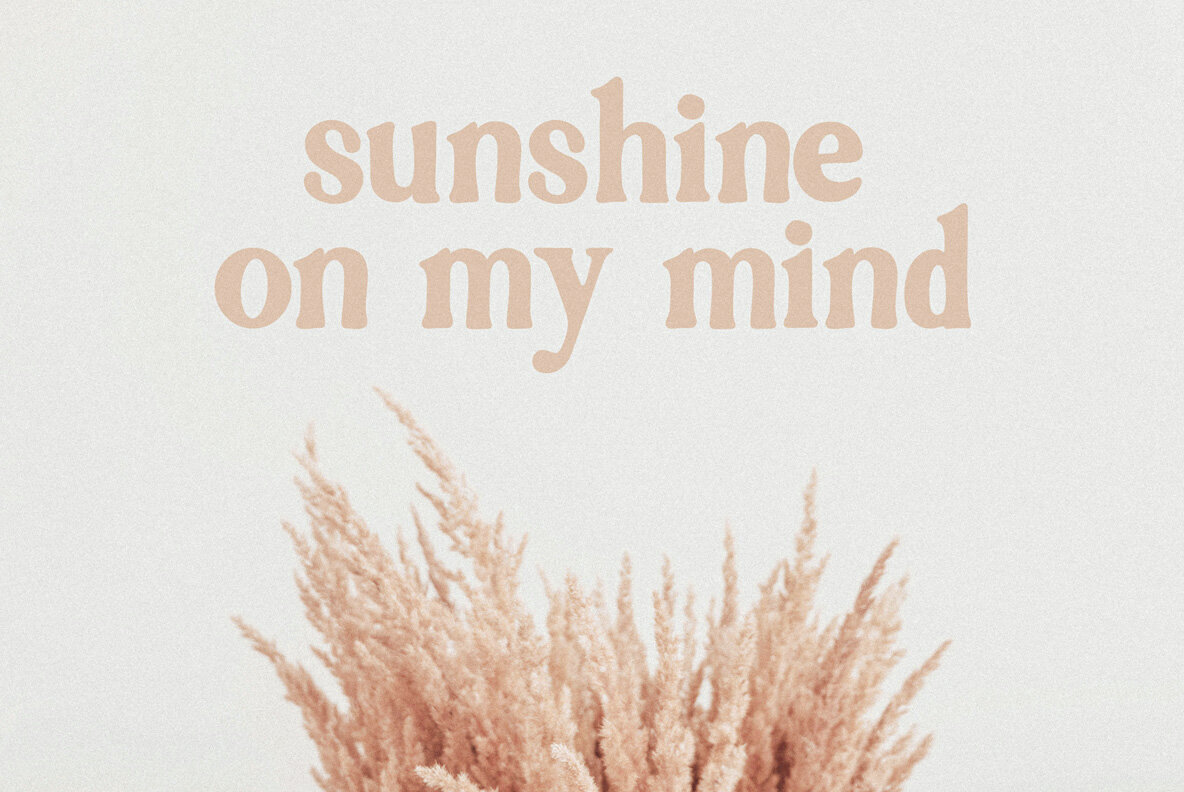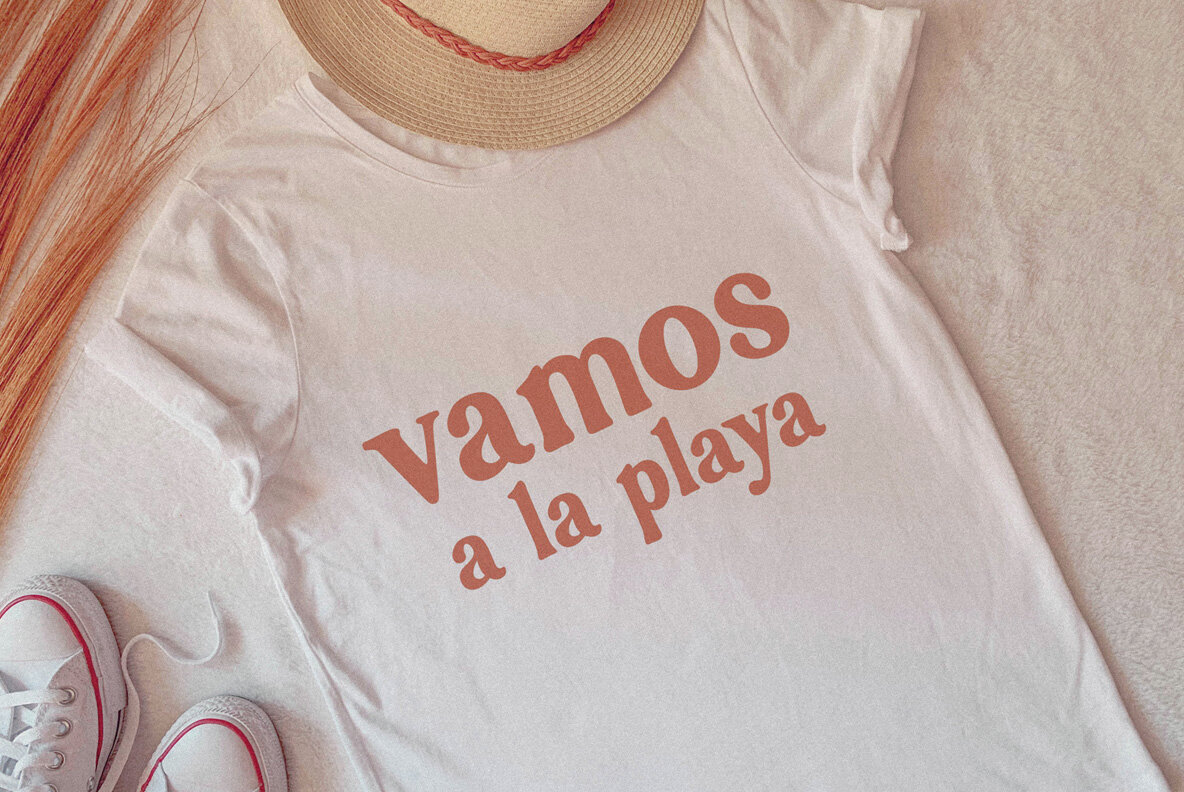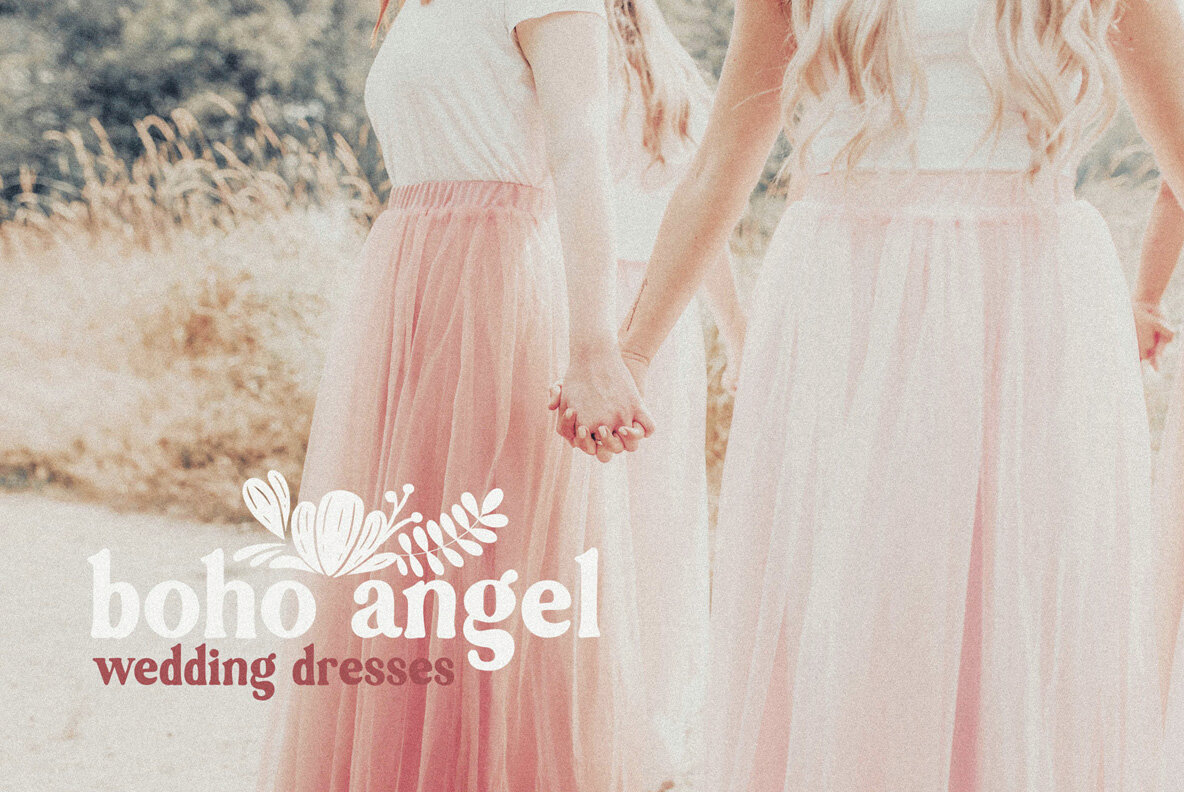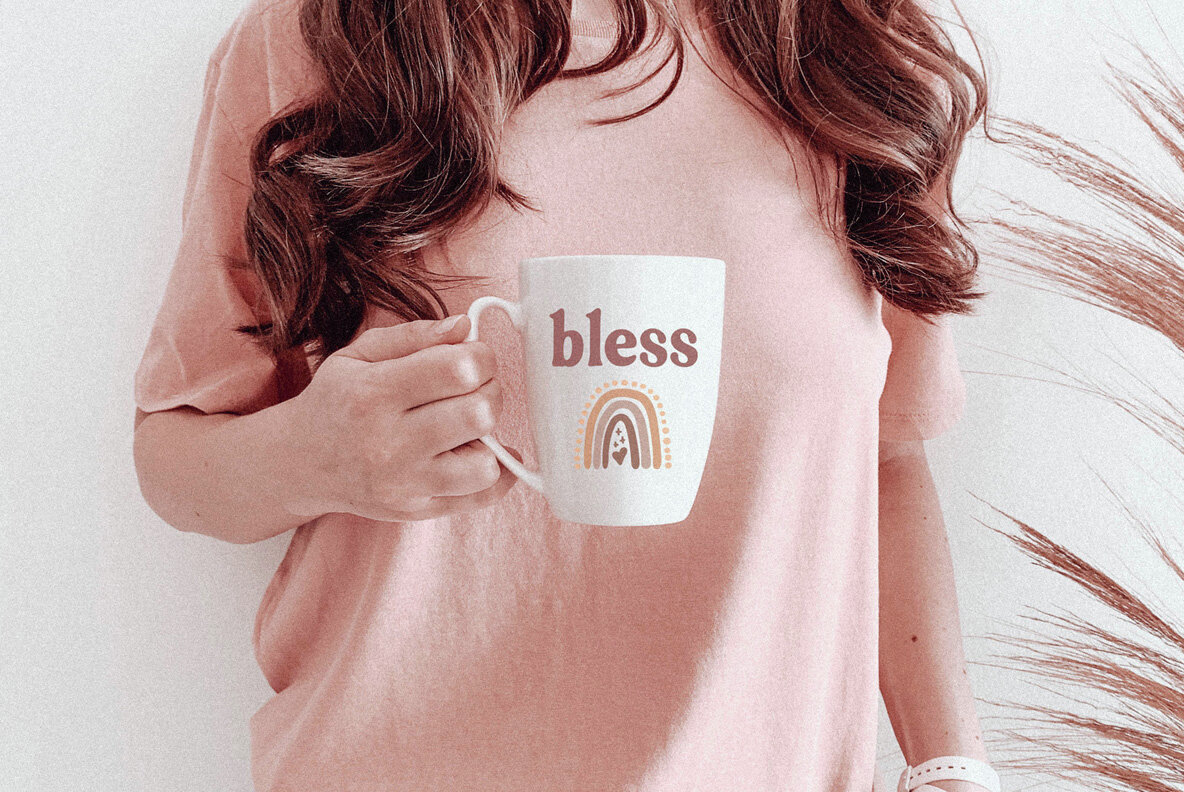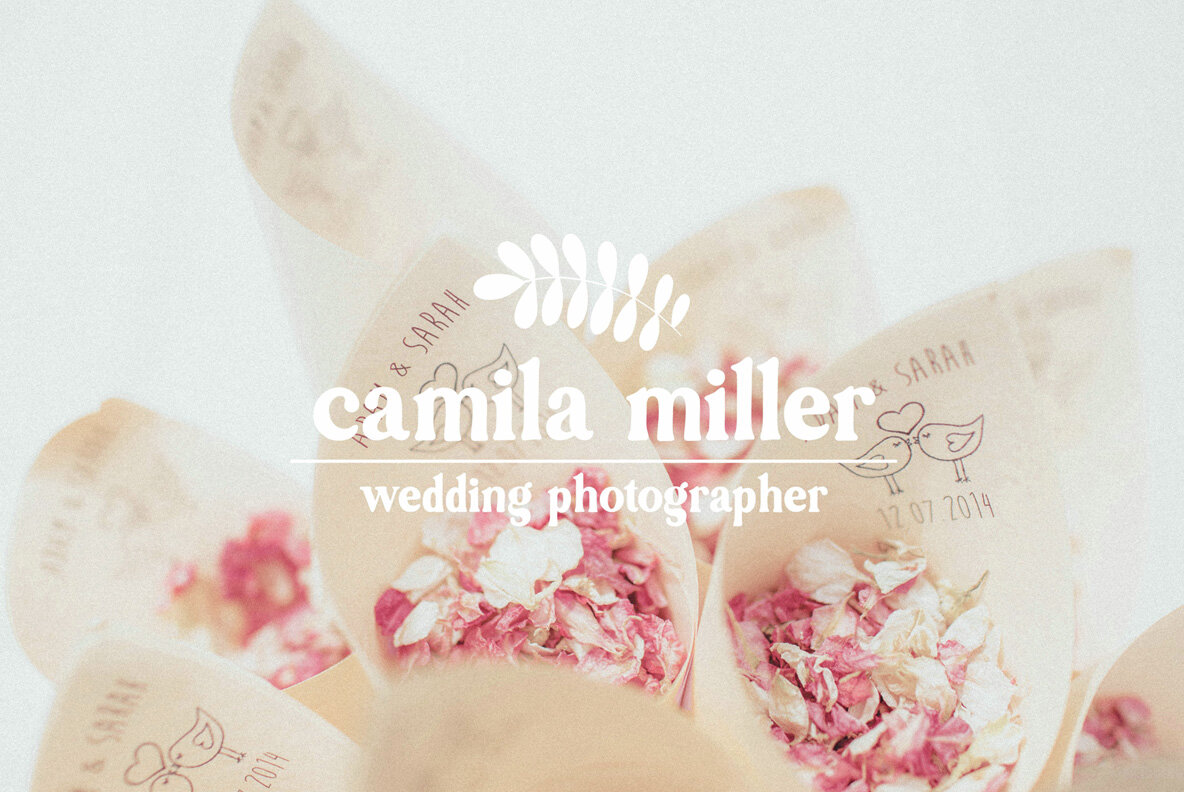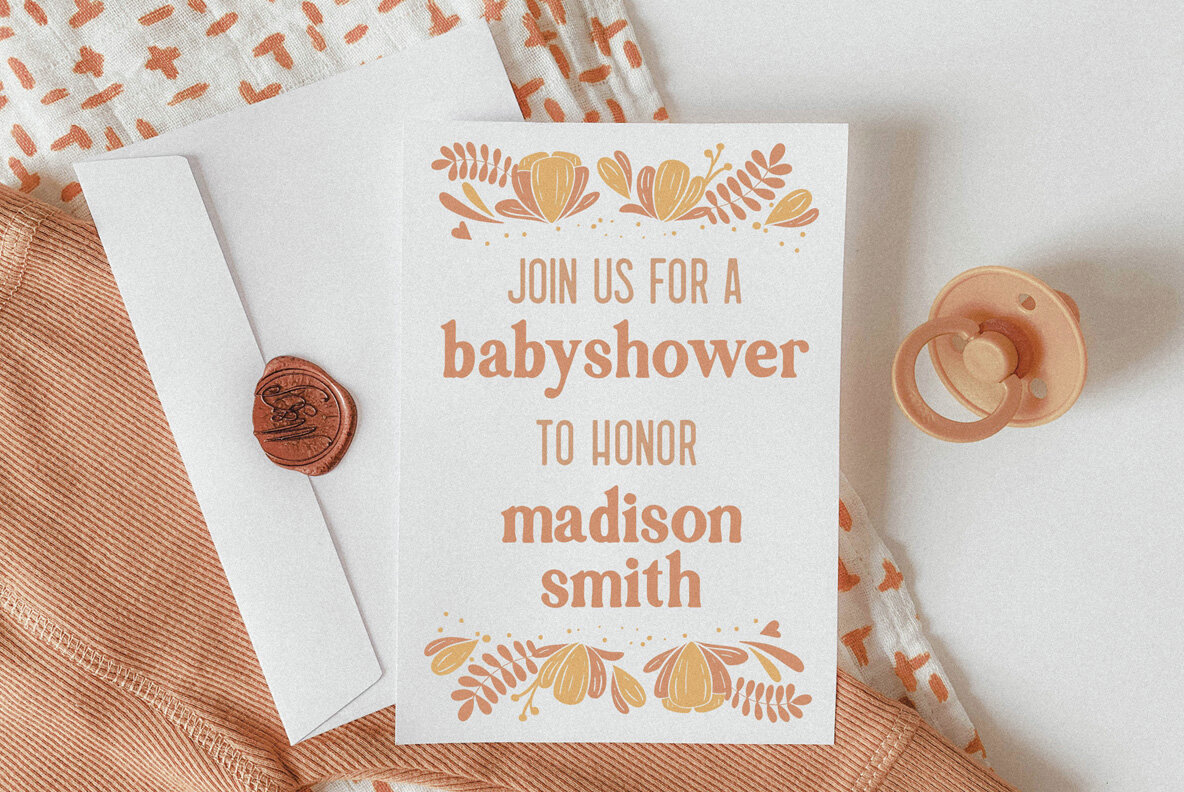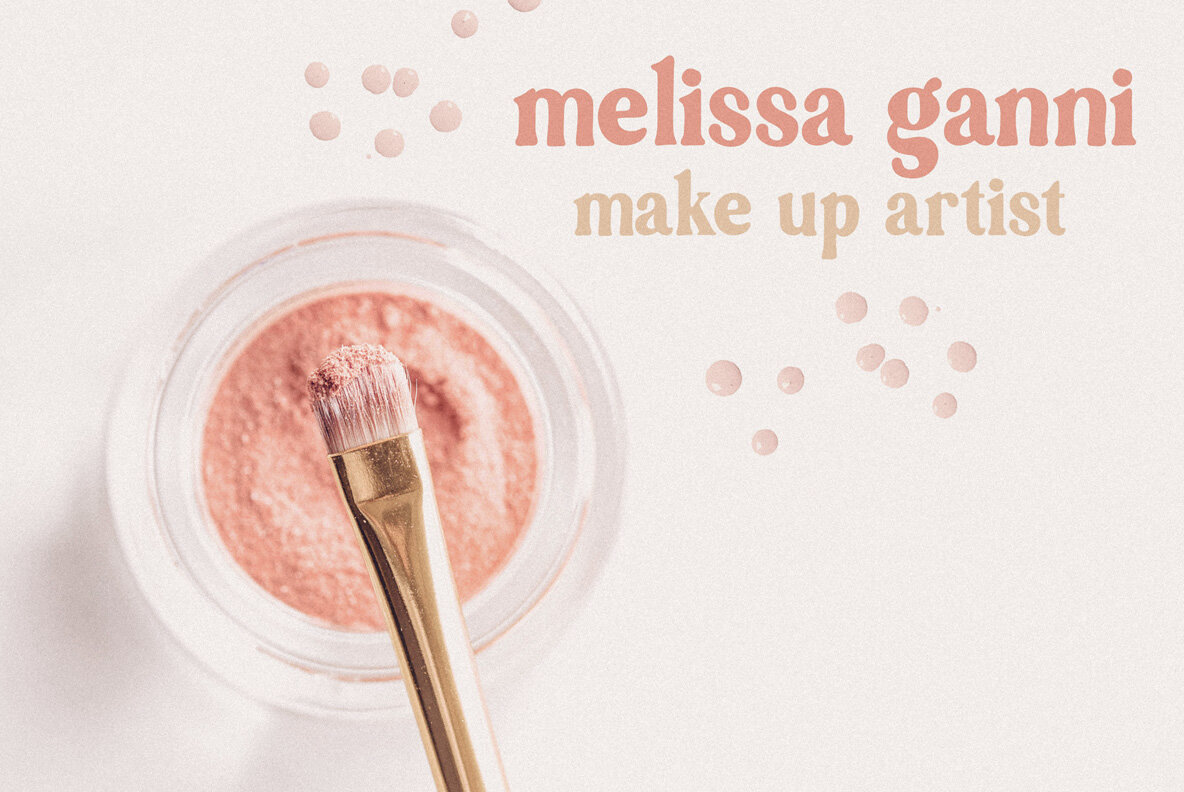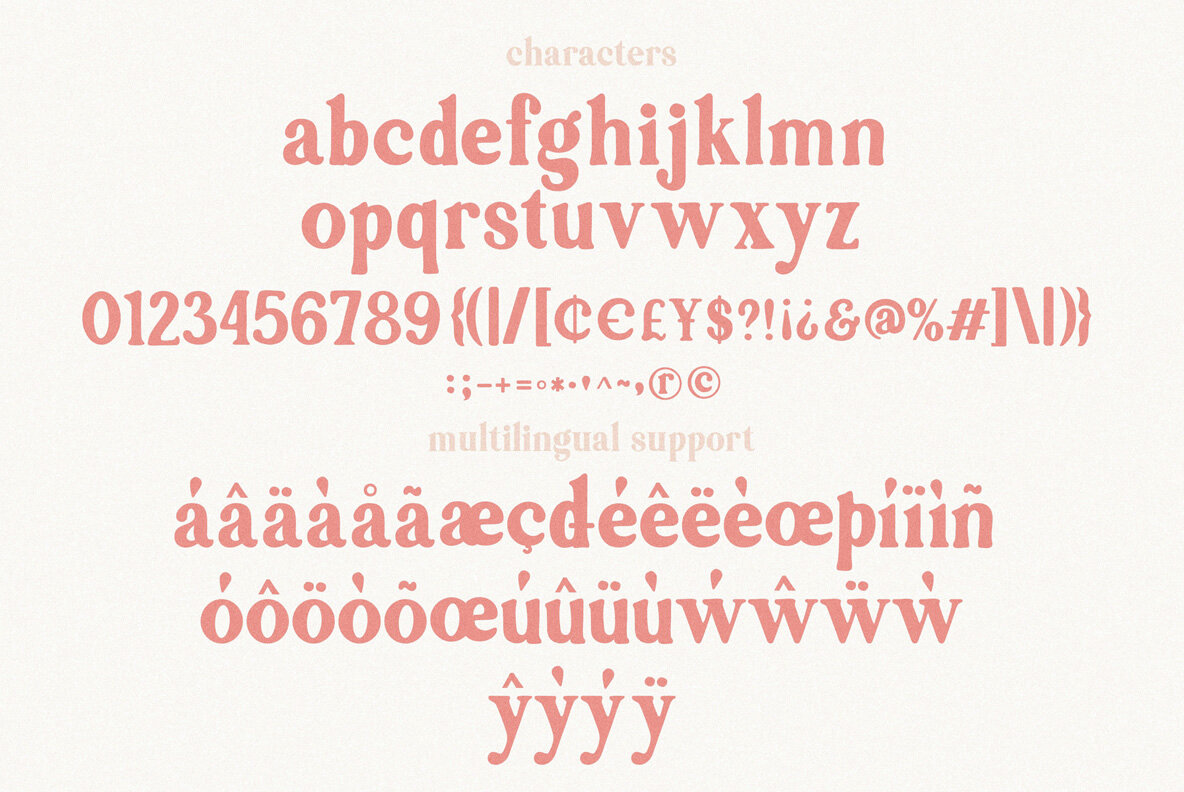
Sugar Peach Font
SugarPeach Regular
Sugar Peach embodies the essence of charming handwriting, offering a delightful touch to any design project. With its elegant curves and welcoming style, this font is perfect for making your text stand out.Sugar Peach: Charming Handwriting Font